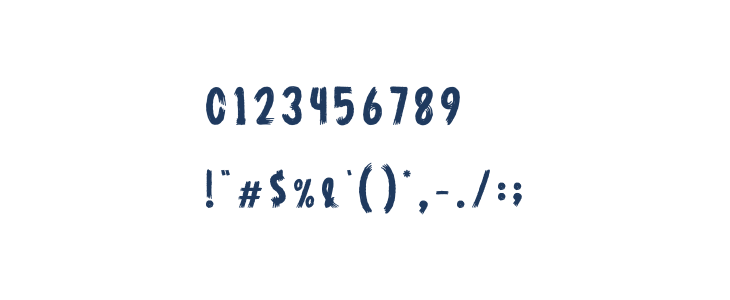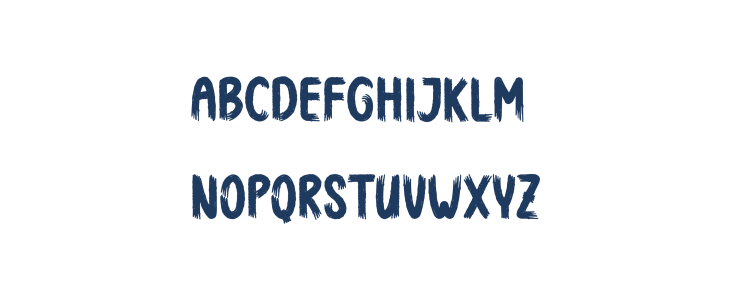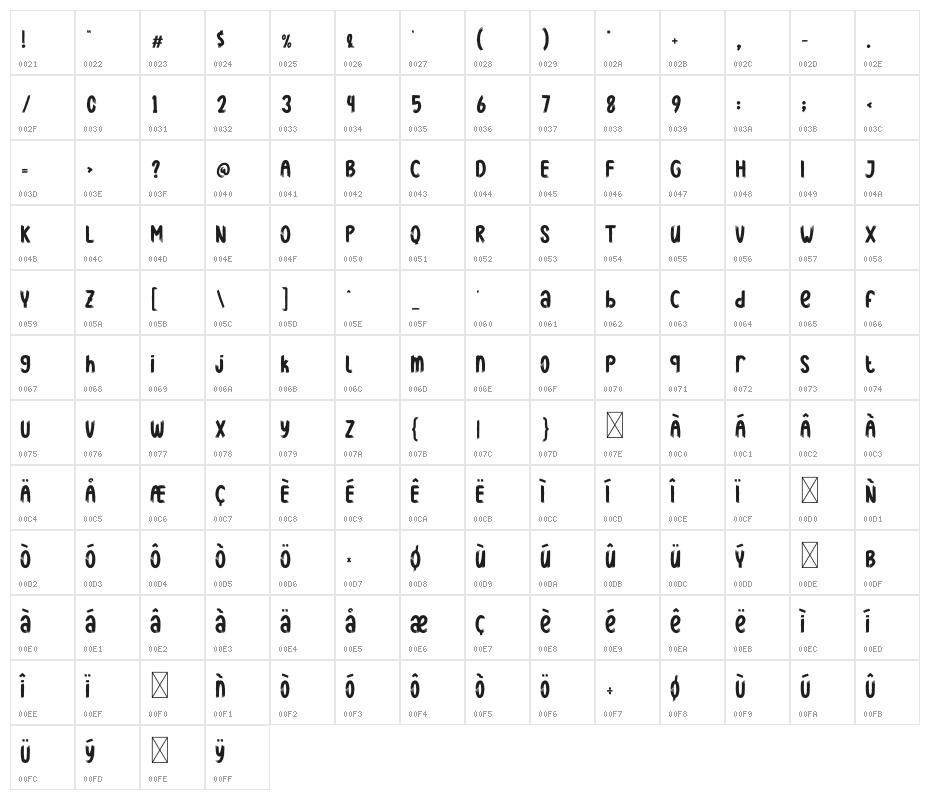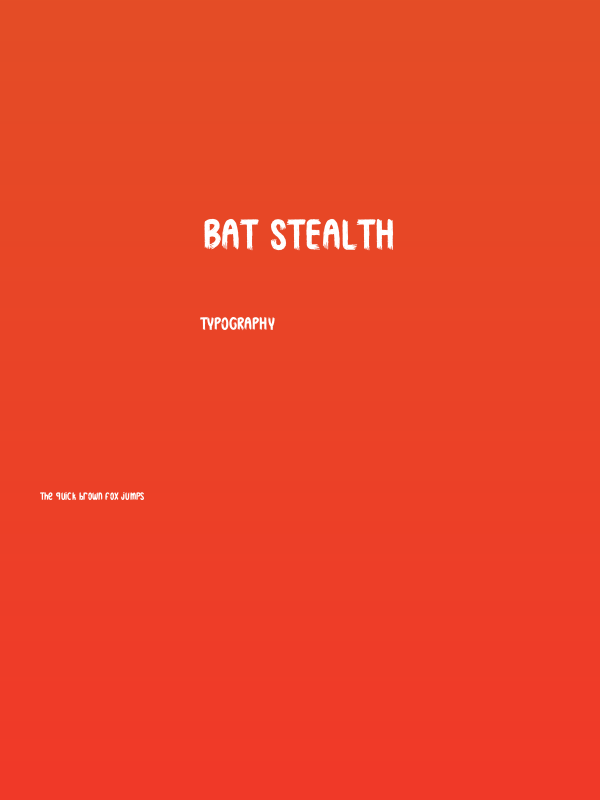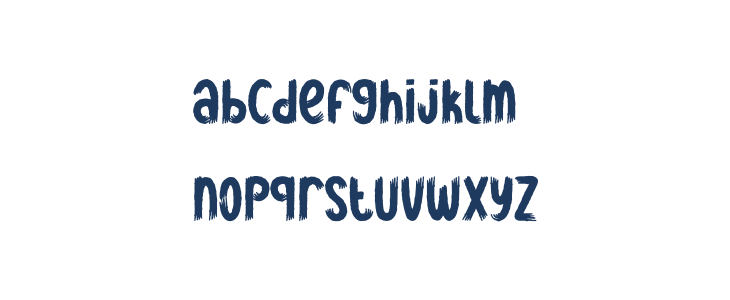
Bat Stealth Font
Bat Stealth Description
A bold, brush-stroke style display font with rough, jagged edges and an energetic, hand-painted appearance. The characters are rounded but feature uneven, textured ends, giving a dynamic and dramatic effect.
| Overall Style | Decorative, Dramatic, Energetic |
| Use Case | Headlines, Posters, Logos, Event Promotions |
| Proposed Projects | Posters, horror or action movie titles, comic books, Halloween invitations, branding for edgy or creative projects. |